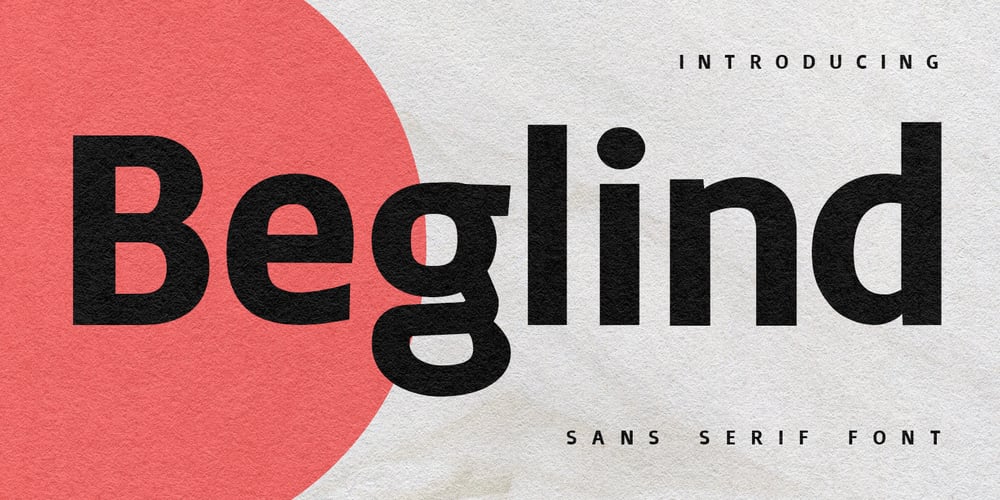
MC Beglind Font Family was designed by Gilang Maulana and published by Maulana Creative. MC Beglind contains 1 styles and family package options. Beglind is a modern sans serif font. With bold tall and sharp stroke, fun character with a bit of ligatures to give you an extra creative work. Beglind font support multilingual more than 100+ language. This font is good for logo design, Social media, Movie Titles, Books Titles, a short text even a long text letter and good for your secondary text font with sans or serif. Make a stunning work with Beglind font.Cheers,Maulana Creative